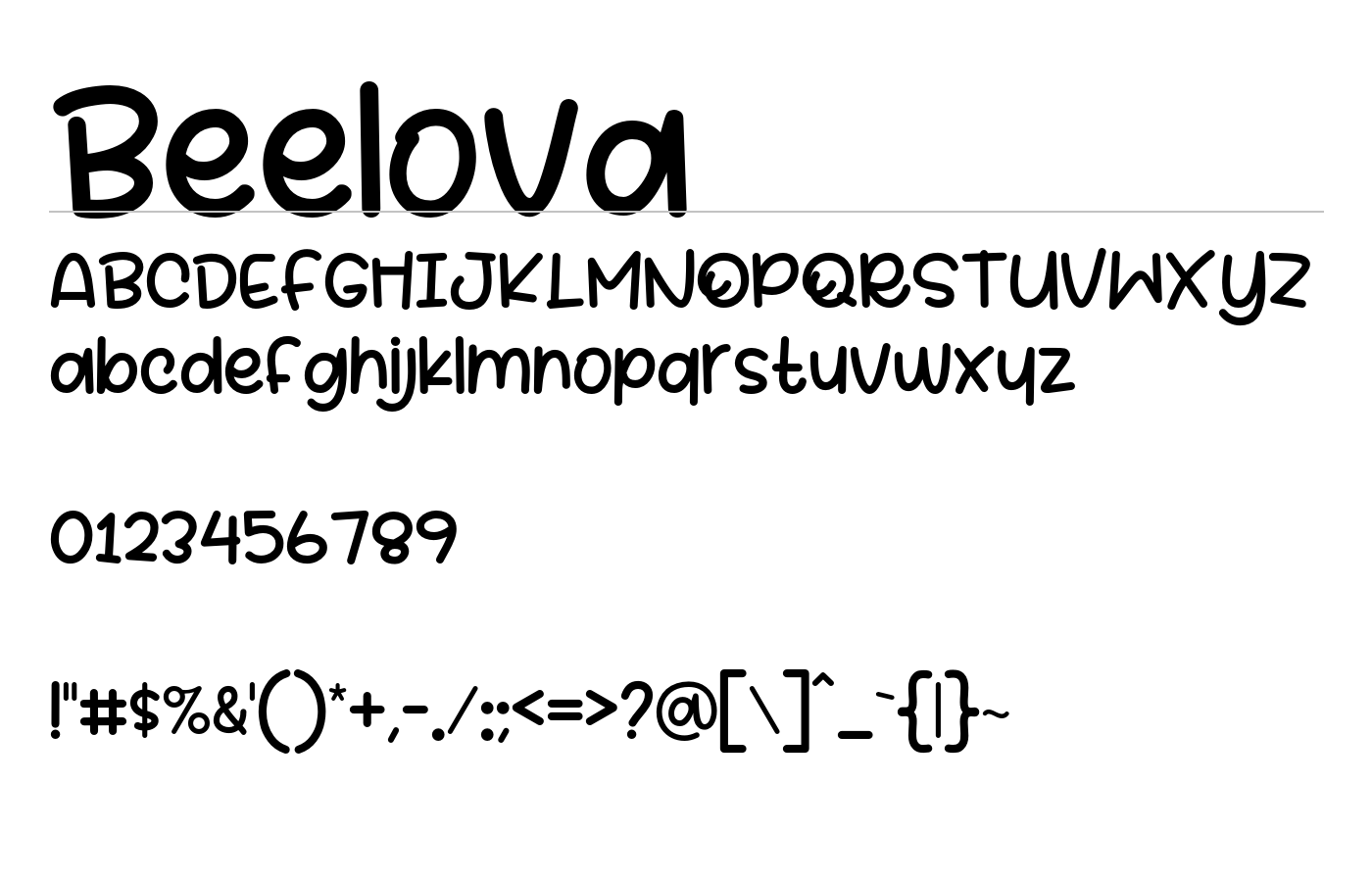
Beelova is a playful and casual handwritten sans serif font characterized by its rounded, friendly letterforms and moderate x-height that ensure good readability. Its smooth, uniform strokes and quirky details, such as the unique shapes of letters like "g" and "Q," make it feel approachable and fun, perfect for informal settings. This font works well for children’s books, playful branding, invitations, and any design that seeks a warm, inviting, and cheerful vibe.
Beelova Font
About Beelova Font
| Font family | Beelova Font |
| Designer | Keithzo; Situjuh Nazara |